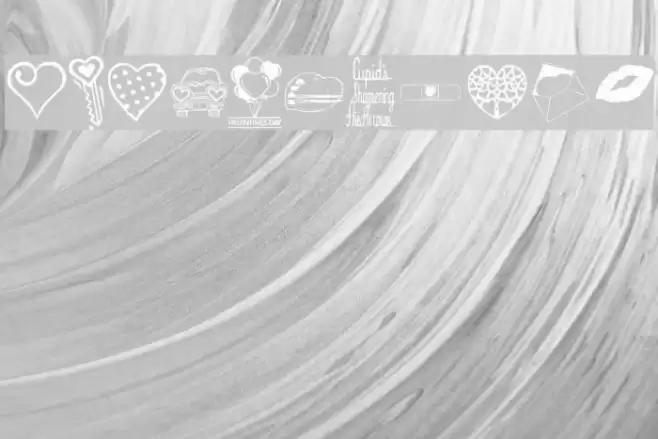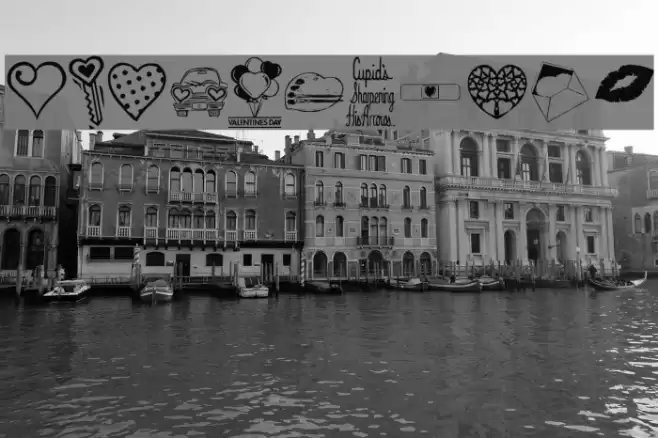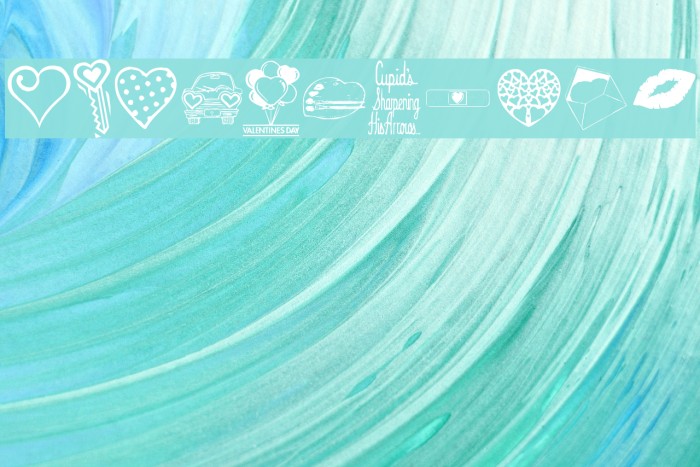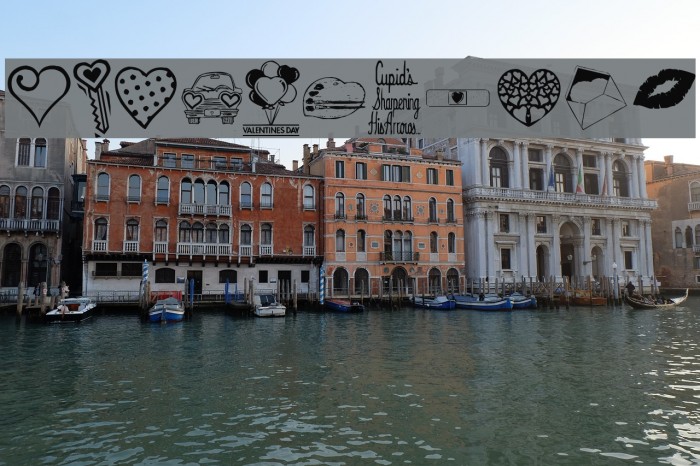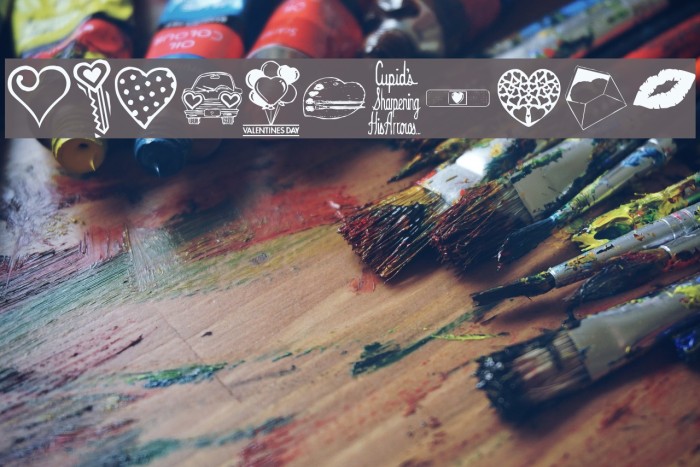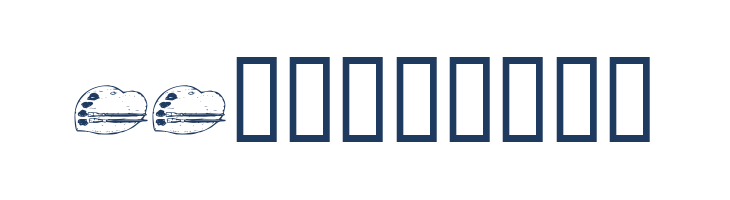
KR Valentine Dings Font
KR Valentine Dings Description
This is not a traditional font but rather a collection of decorative symbols and illustrations themed around Valentine's Day. The designs include hearts, keys, cars, balloons, and romantic phrases, each crafted with intricate details. These elements are more pictorial and serve as decorative icons rather than typographic characters. The style is playful and whimsical, making it suitable for festive and romantic projects. The illustrations are bold and clear, designed to stand out and convey a sense of love and celebration.
A collection of Valentine's Day-themed decorative symbols and illustrations from Valentine's Day fonts.
- Proposed Projects: Ideal for Valentine's Day cards, romantic event invitations, themed posters, and decorative crafts.
- Use Case: Decorative elements for festive designs.